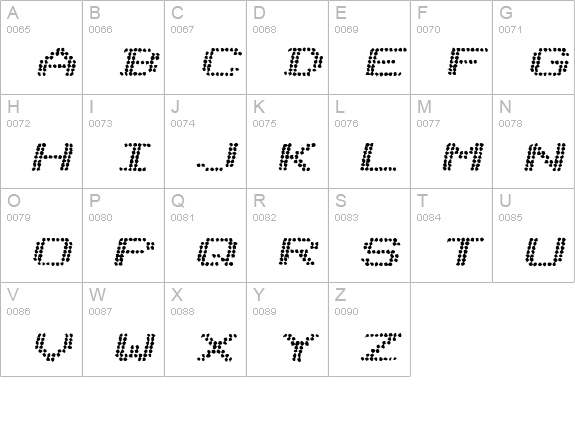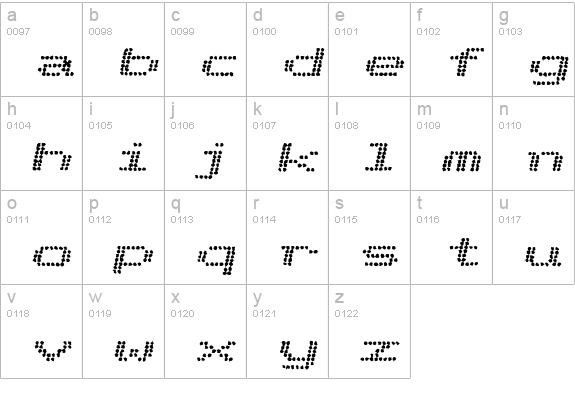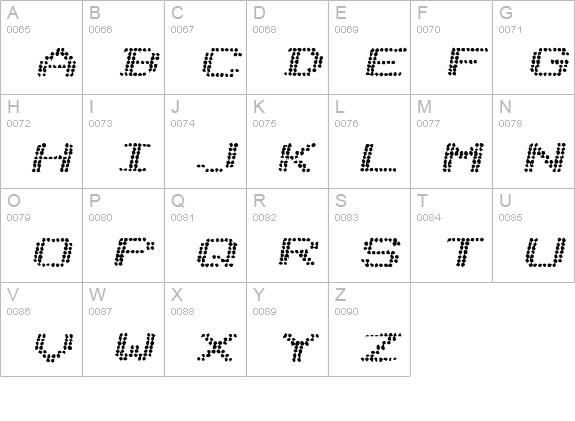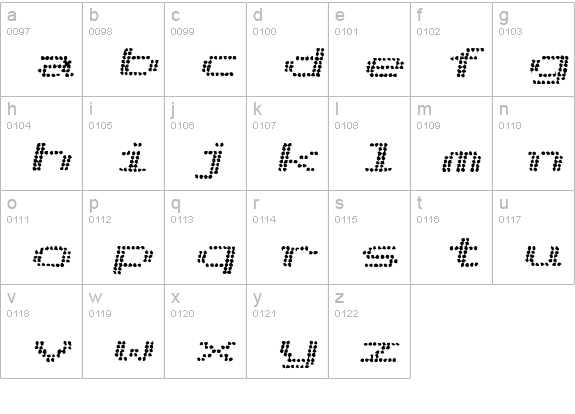
Telidon Ink Ex Bold Italic is a strong, high-contrast, italic variant in the Telidon typeface family \xE2\x80\x94 well suited to headlines, attention-grabbing titles, and strong calls-to-action.
Telidon Ink Ex Bold Italic font is a striking and bold typeface that exudes a sense of creativity and modernity. With its thick and slanted letterforms, this font is perfect for making a statement in any design project. The distinctive ink-like texture adds a touch of edginess and character to your text. Best of all, Telidon Ink Ex Bold Italic font is available for free download at FontsMarket.com. This means you can easily access this unique font and use it in your personal or commercial projects without any cost. Whether you're looking to add a bold flair to your posters, websites, or social media graphics, Telidon Ink Ex Bold Italic font is sure to make a lasting impression. Download it today and elevate your designs with this eye-catching typeface.